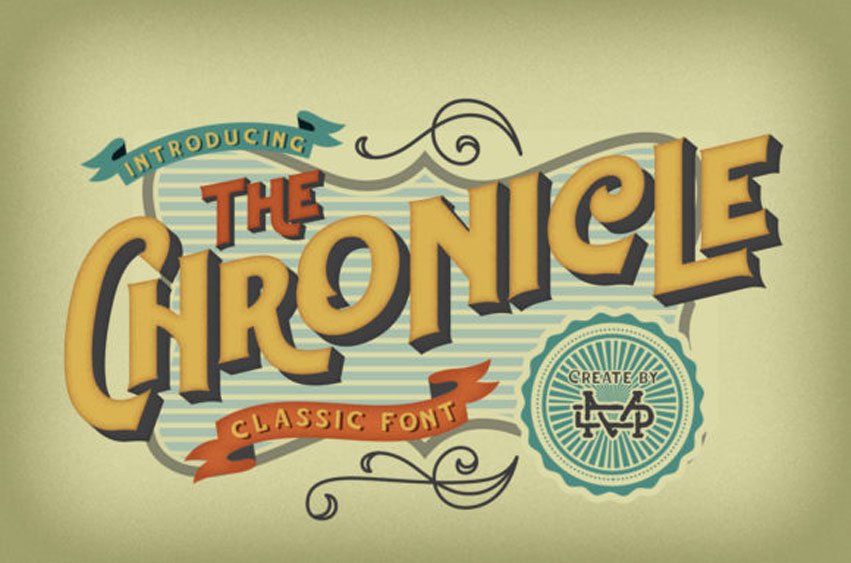
Chronicle Font is a classic vintage-themed display font with a cool feel.
It’s confident and bold, and will turn any design project into an eye-catcher!